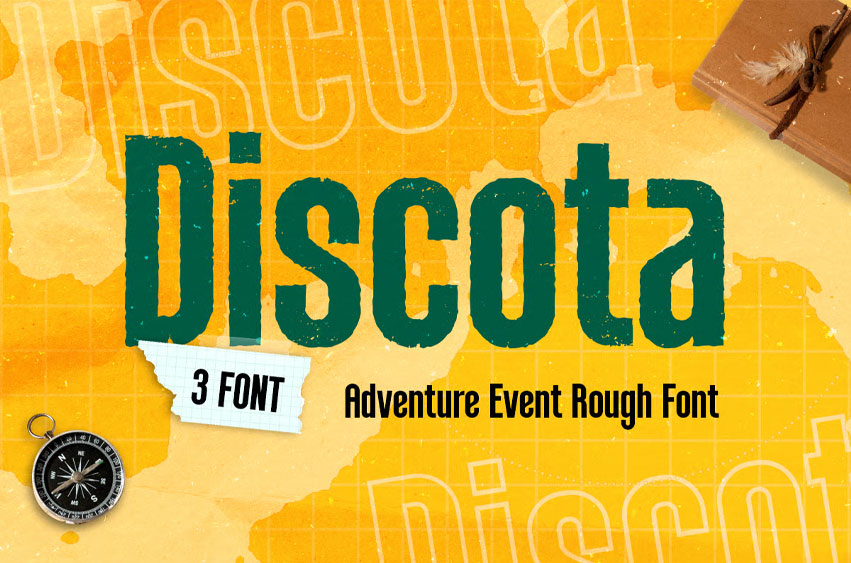
Discota Rough Font
Discota Rough Font is an adventure event rough font designed for bold and exciting outdoor designs. With its rugged texture and dynamic style, it’s perfect for branding adventurous events, outdoor activities, and anything that needs a raw, energetic touch. Discota combines a rough, hand-drawn feel with modern typography, making it an ideal choice for logos, posters, and signage.
The adventurous nature of Discota makes it perfect for projects that need to stand out and communicate excitement. Whether you are organizing an outdoor festival, adventure sports event, or a rugged-themed brand, Discota delivers an impactful and memorable look. Crafted to bring a sense of energy and movement, Discota is versatile enough to adapt to different creative projects while maintaining its distinct personality. Its rough, edgy aesthetic ensures your designs catch attention and leave a lasting impression.
Discota Adventure Event Rough Font Features:
• Rough, textured characters ready for bold designs
• Available 3 Styles: Regular, Rough, & Outline
• Punctuation, Number, and Symbol
• Uppercase and Lowercase
• Opentype Features